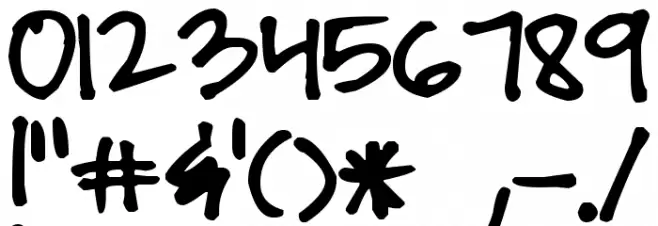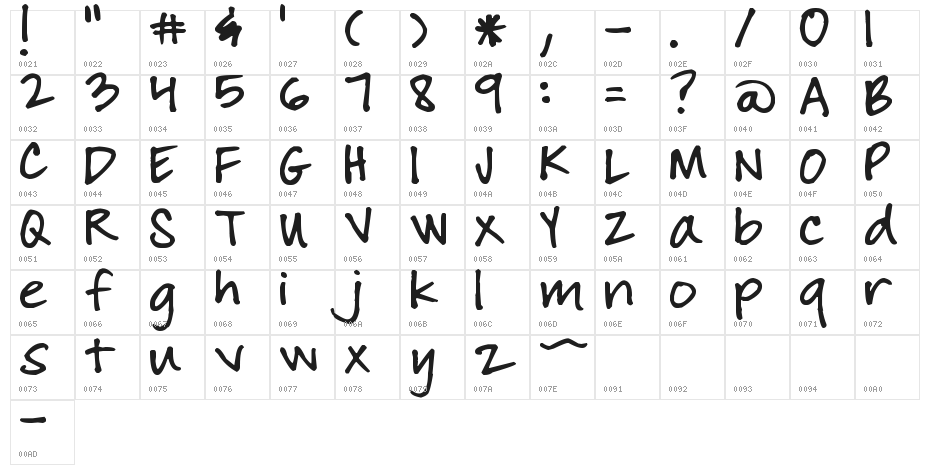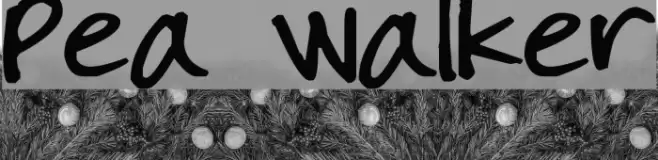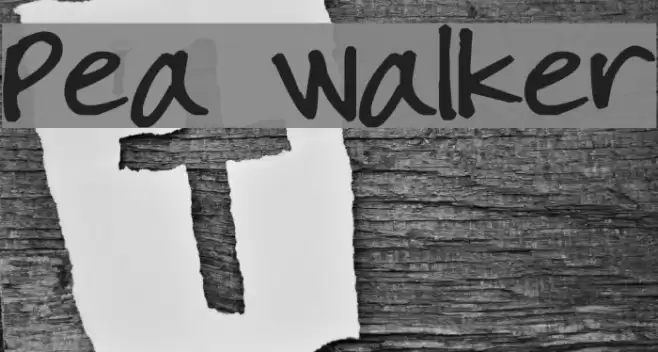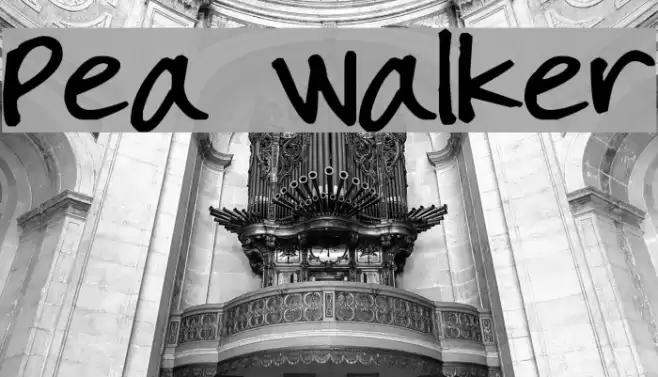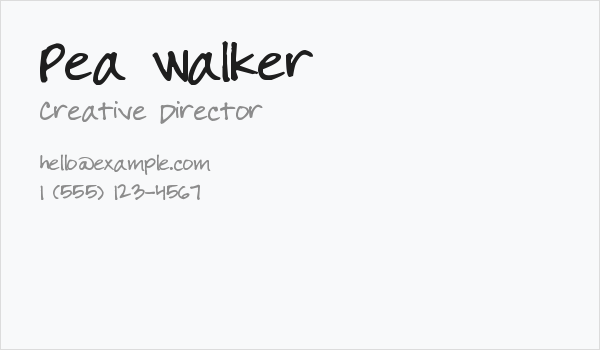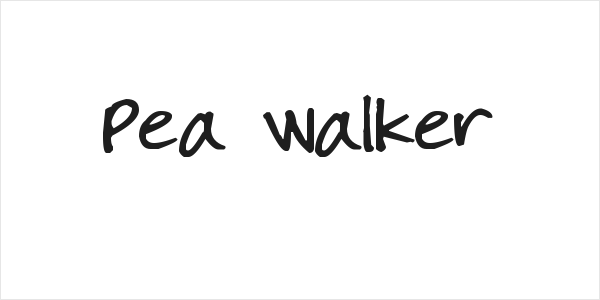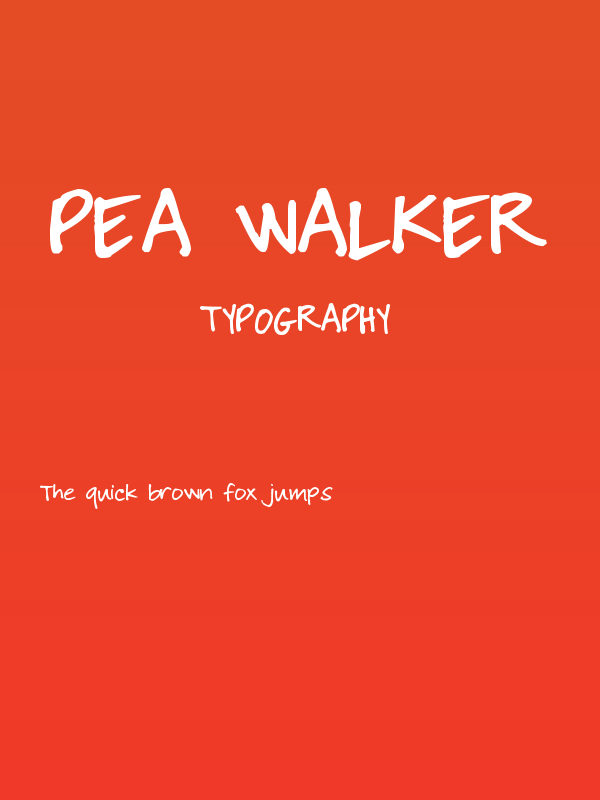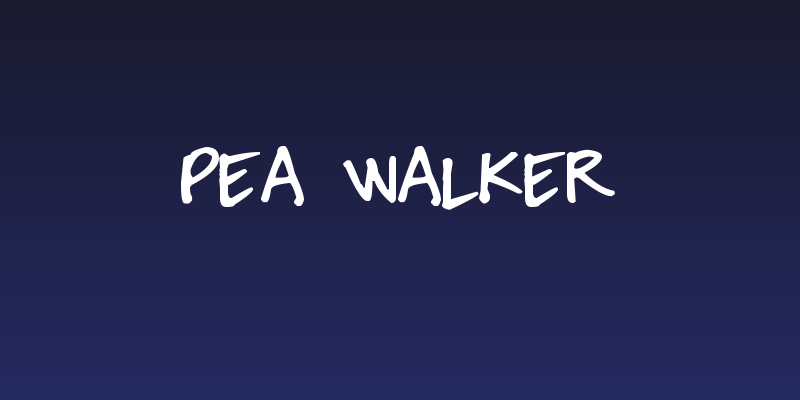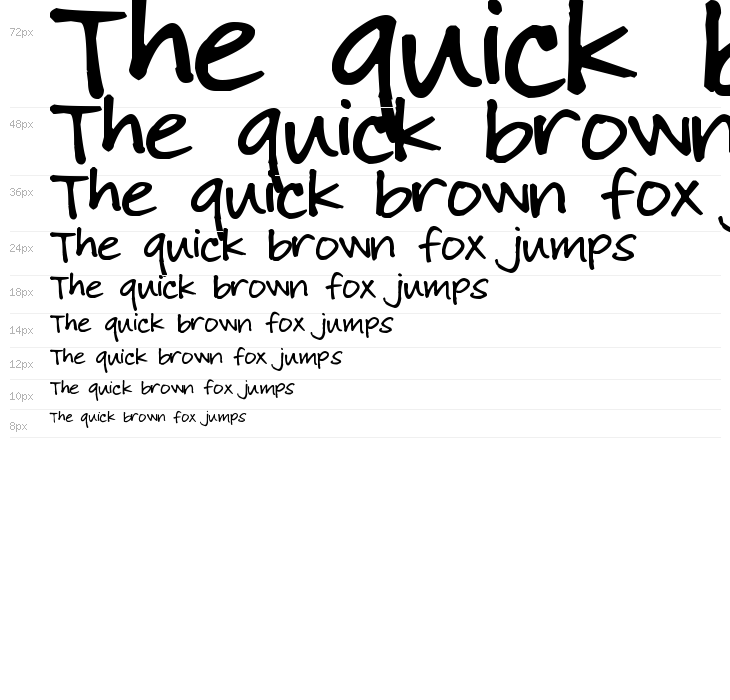
Pea Walker Font
Pea Walker Description
This font exudes a casual, handwritten style with a playful and approachable vibe. The letters are slightly irregular, mimicking the natural flow of handwriting, which adds a personal touch to any design. The strokes are bold and confident, yet maintain a sense of fluidity and ease. The uppercase and lowercase letters are well-balanced, with a consistent stroke width that ensures readability. Numbers and special characters are included, maintaining the same lively and informal aesthetic. This font is perfect for projects that require a personal, friendly feel, such as invitations, greeting cards, or casual branding.
Overall StyleCasual
Use CaseHeadlines, Informal text, Personal projects
Proposed ProjectsIdeal for invitations, greeting cards, casual branding, and personal projects.